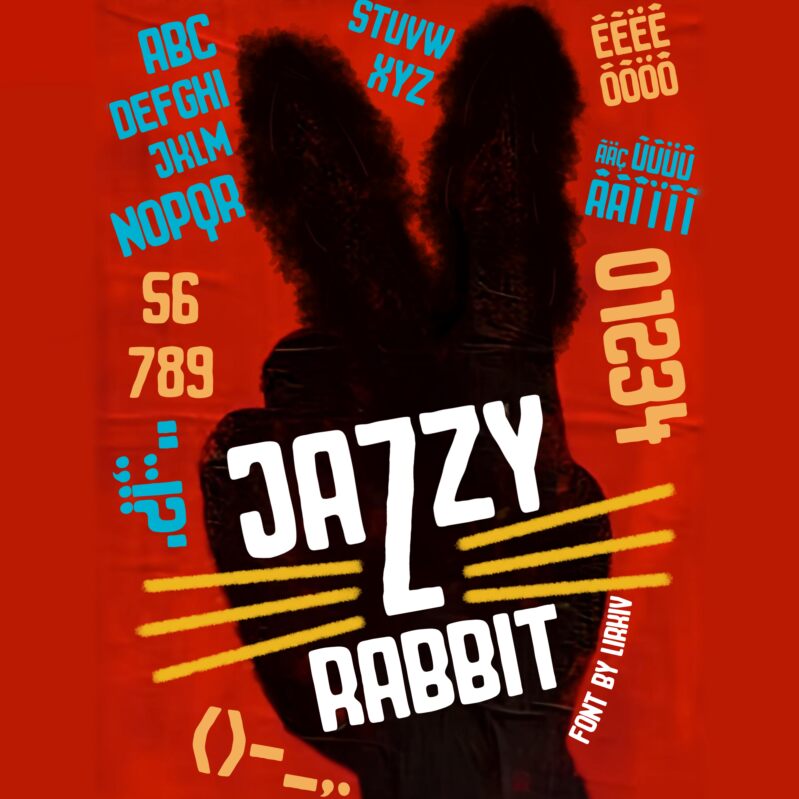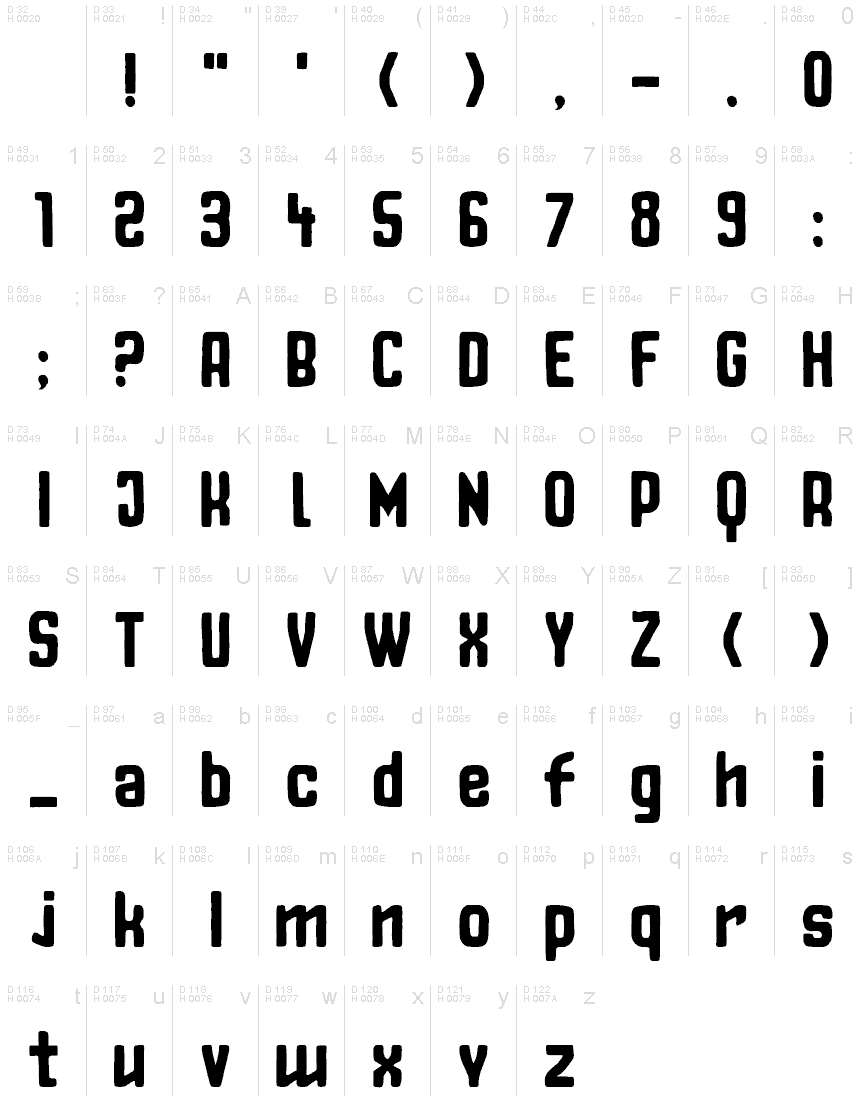
JazzyRabbit
Jazzy Rabbit font by Lir Kiv is a revival of retro with modern qualities. The display free font has a vibrant informal aesthetic with expressive lettering and informal appeal. Enjoy the quirky details and rounded letter corners in designs where you want to translate friendly vibes among other messages.
Use Jazzy Rabbit for branding, advertising, packaging, posters, stationery design, typography art, titles and headers. It’s suitable for music-related themes like album covers or concert posters. Websites including blogs dealing with fashion or interior design can explore its letters.